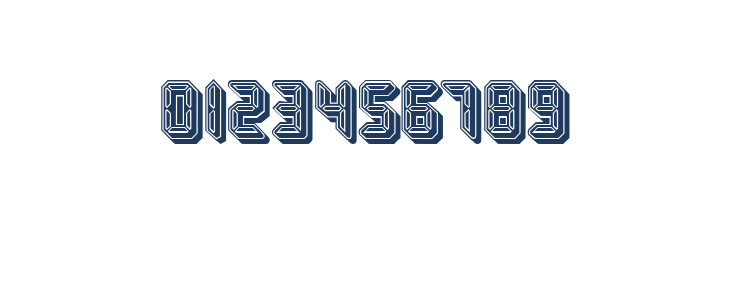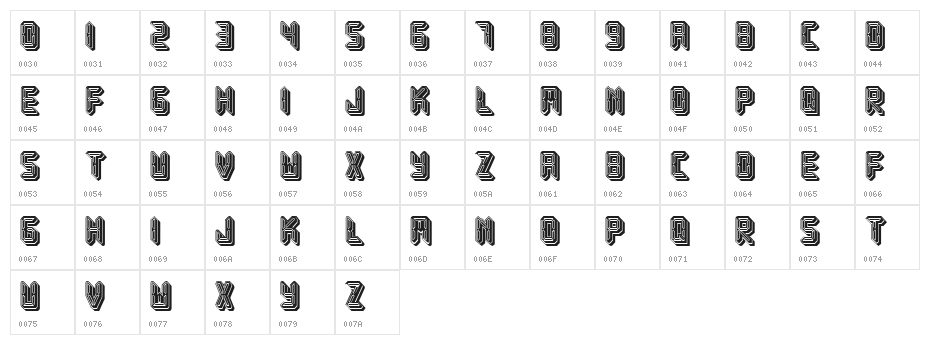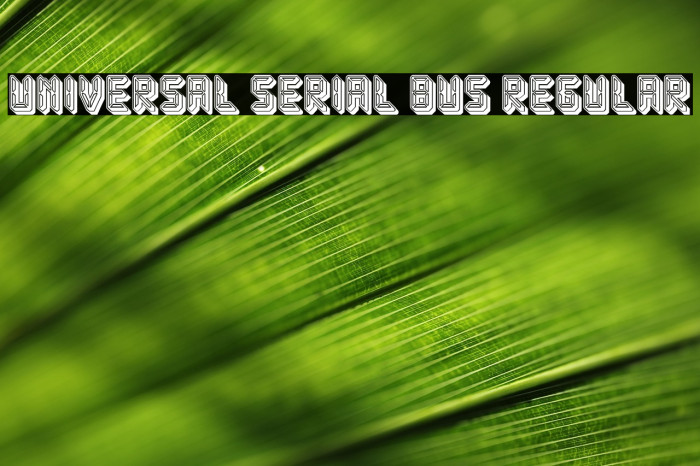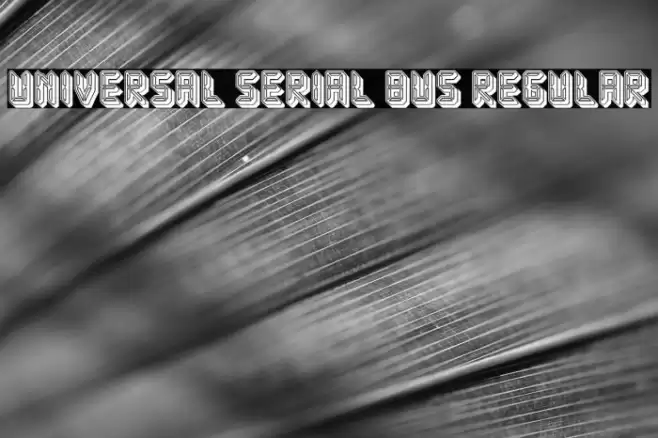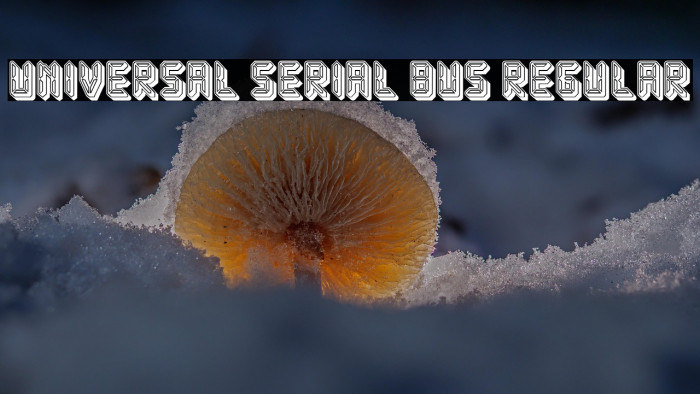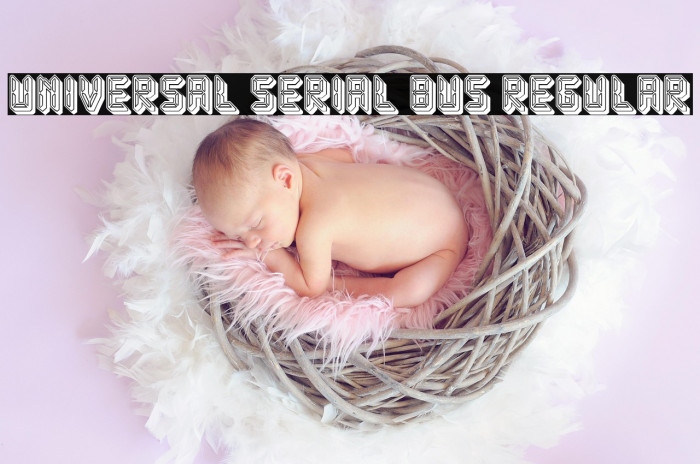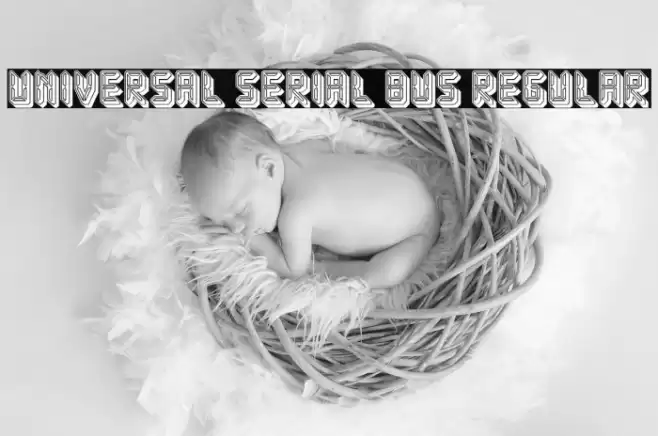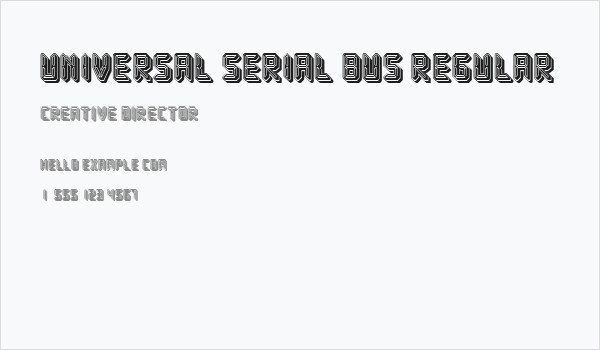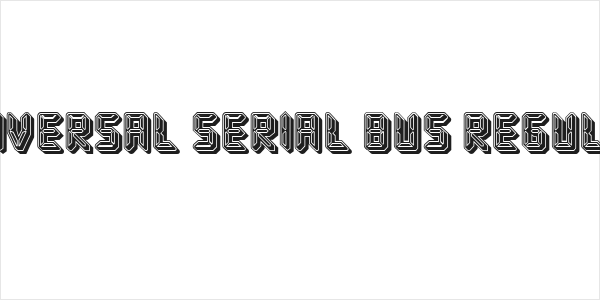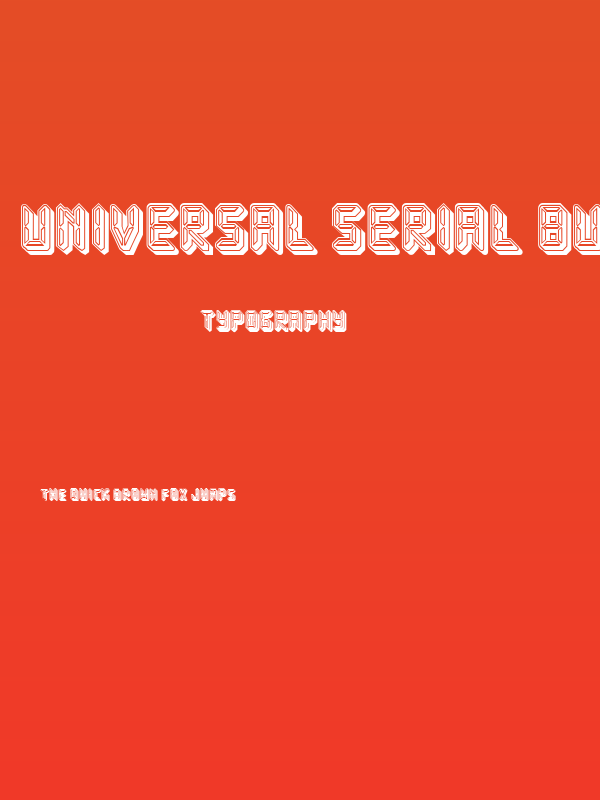
Universal Serial Bus Regular Font
Universal Serial Bus Regular Description
This font features a bold, geometric design with a three-dimensional effect, characterized by its sharp angles and layered outlines. The letters are constructed with a distinct blocky style, giving them a futuristic and industrial appearance. The use of multiple layers and shadows creates a sense of depth, making the characters stand out prominently. This font is highly decorative, with each character exhibiting a unique and intricate pattern that adds to its visual complexity. The overall design is striking and modern, suitable for projects that require a strong visual impact.
| Proposed Projects | Ideal for branding, posters, video game graphics, and any project needing a futuristic or industrial look. |